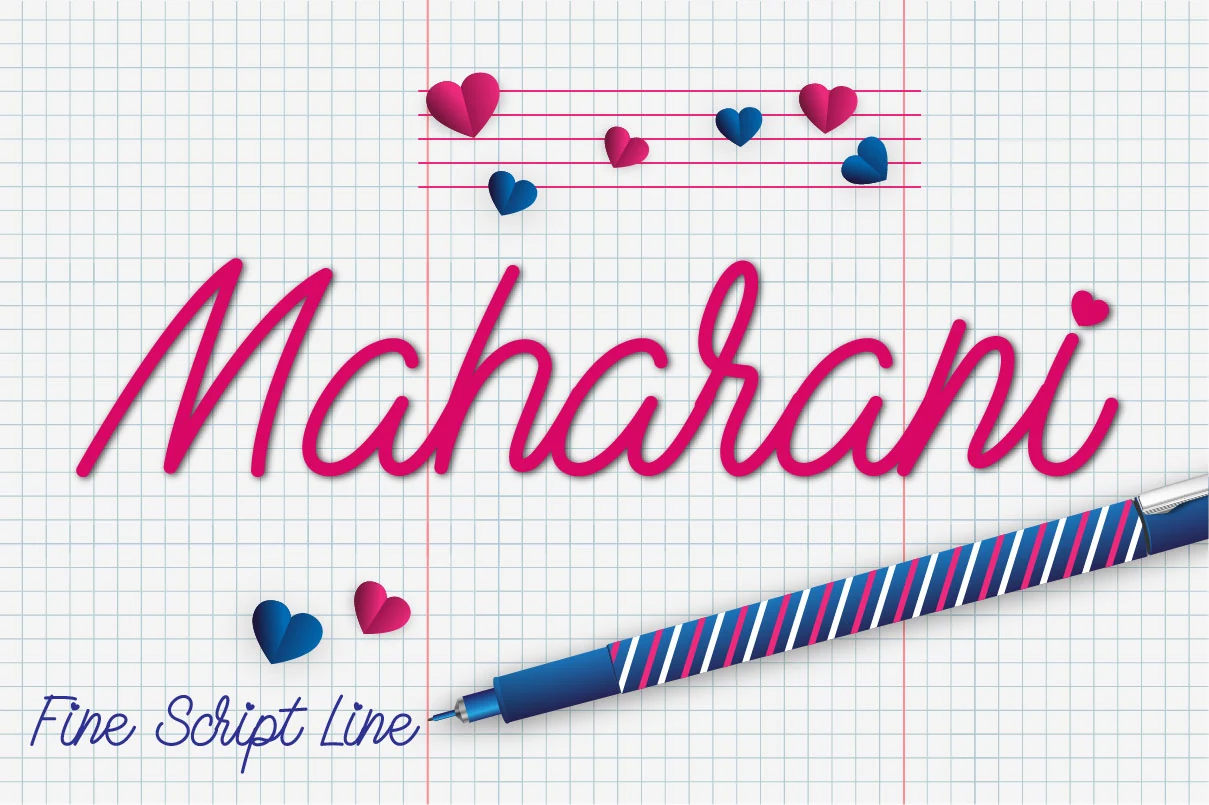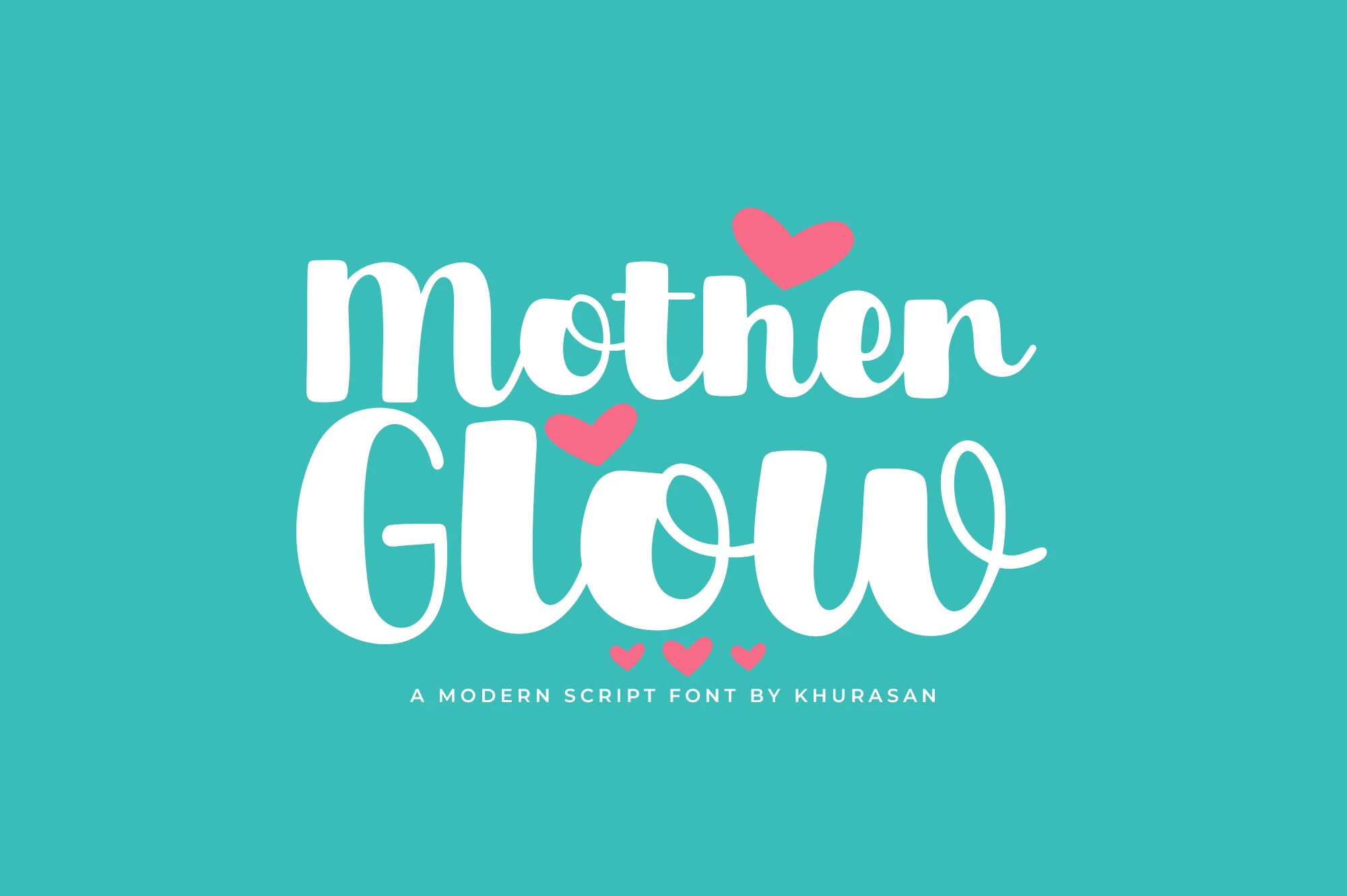
17 Beautiful Cute Script Fonts for 2026
Cute Script Fonts can bring warmth, charm, and personality to everything from logos and packaging to invitations, posters, stickers, and social media graphics. This collection spans bold bubble lettering, friendly handwritten styles, flowing cursive scripts, and whimsical decorative designs, making it easy to find an option that suits playful branding, romantic stationery, cheerful products, or expressive display text.
Playful Bubble Cute Script Fonts
These bold, rounded styles have cheerful, youthful energy and work especially well for logos, packaging, posters, stickers, and other large display designs.
Valentines Font
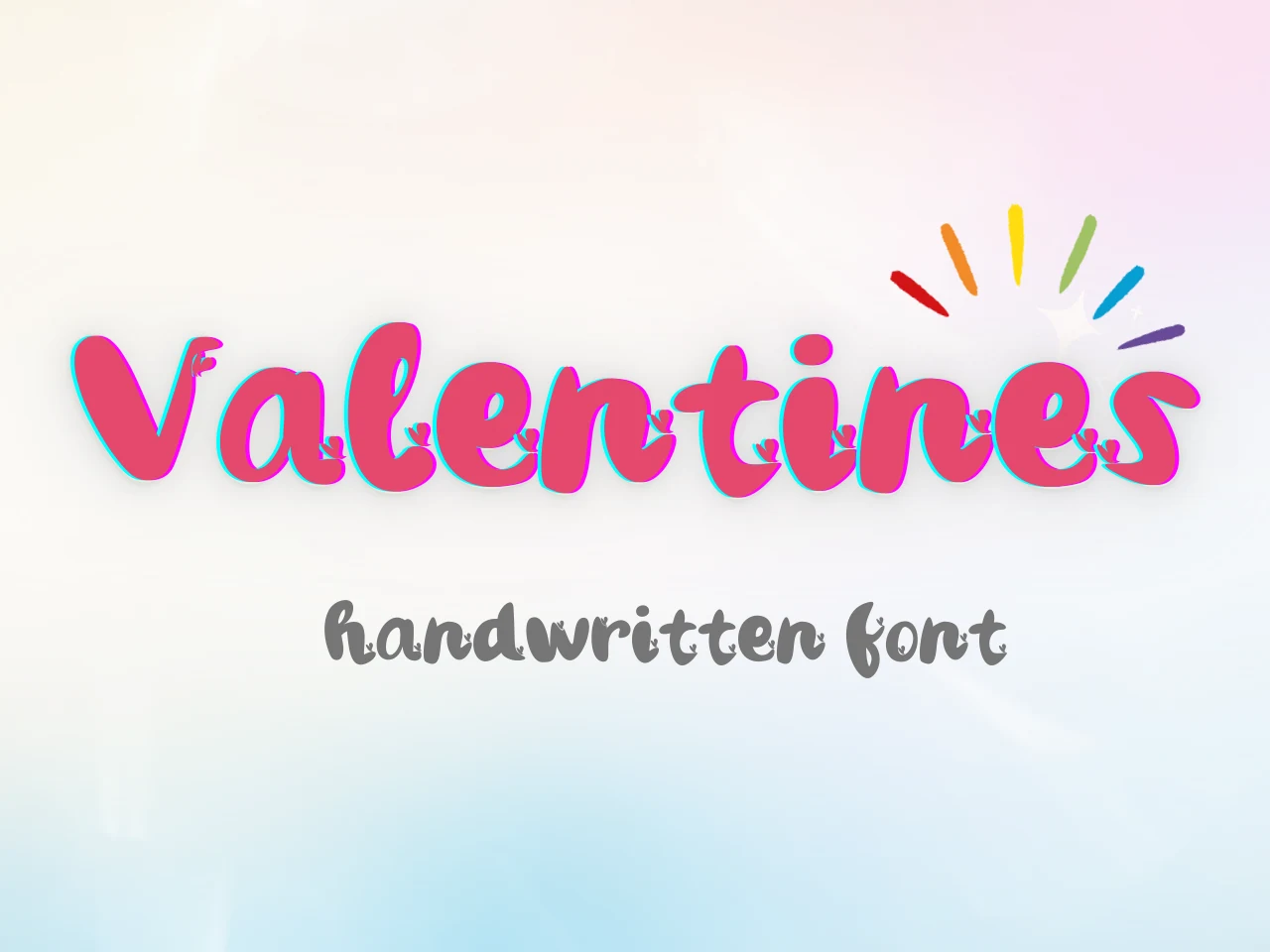
Best For: playful designs, cute designs, posters, stickers
Valentines Font brings a cheerful, quirky personality to Cute Script Fonts with thick monolinear strokes, rounded terminals, and playful irregular curves. Its upright, disconnected letterforms keep the handwritten look clear while giving titles and short phrases a friendly display presence.
The bold shapes remain readable at larger sizes, making this a natural fit for posters, stickers, and packaging. Use generous tracking and strong background contrast to preserve the open rhythm, then set supporting text in a lighter, simpler style so the rounded lettering leads the hierarchy.
Sprache Fett Font
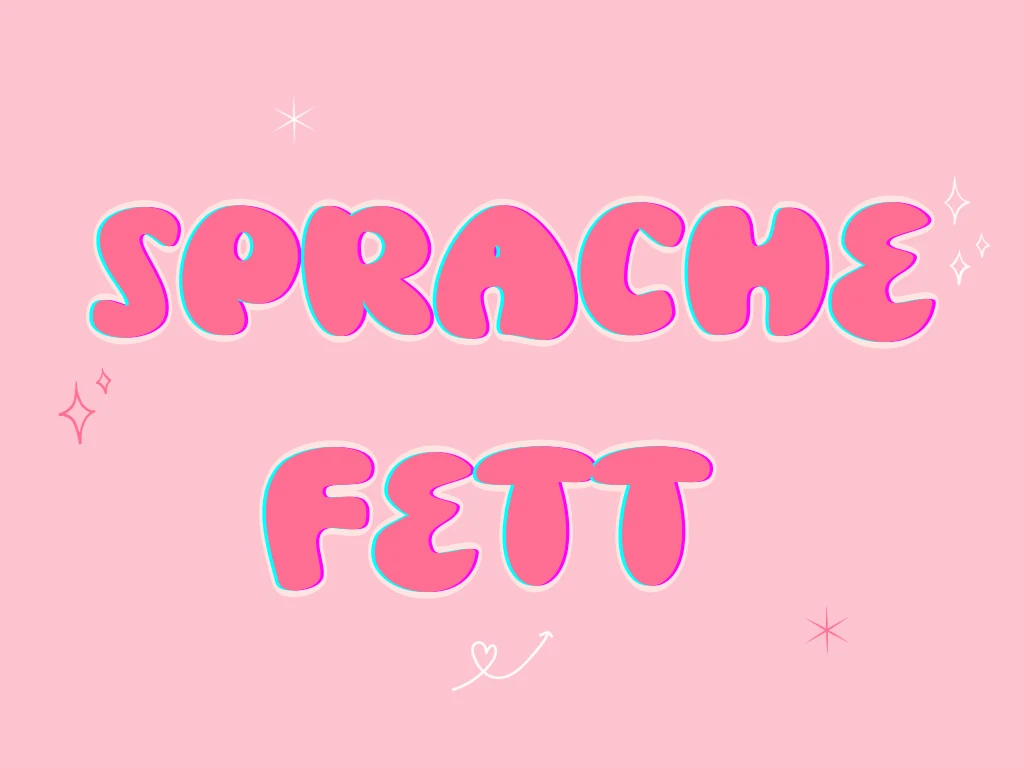
Best For: logos, posters, playful designs, cute designs
Sprache Fett is a sweet, friendly handwritten display face with ultra-bold bubble forms, rounded terminals, and a steady monoline structure. Its upright letters feel cheerful and nostalgic, while the offset outline creates a faux-3D layered effect with strong retro character. Its rounded, inflated shapes bring the cheerful appeal associated with Cute Script Fonts to bold visual work.
Use it for short headlines, logos, and other display text where its soft proportions can take center stage. Keep tracking slightly open so the bulbous forms and layered outline do not crowd together, and place the lettering against a clean, contrasting background for clearer edges.
Gloria Font
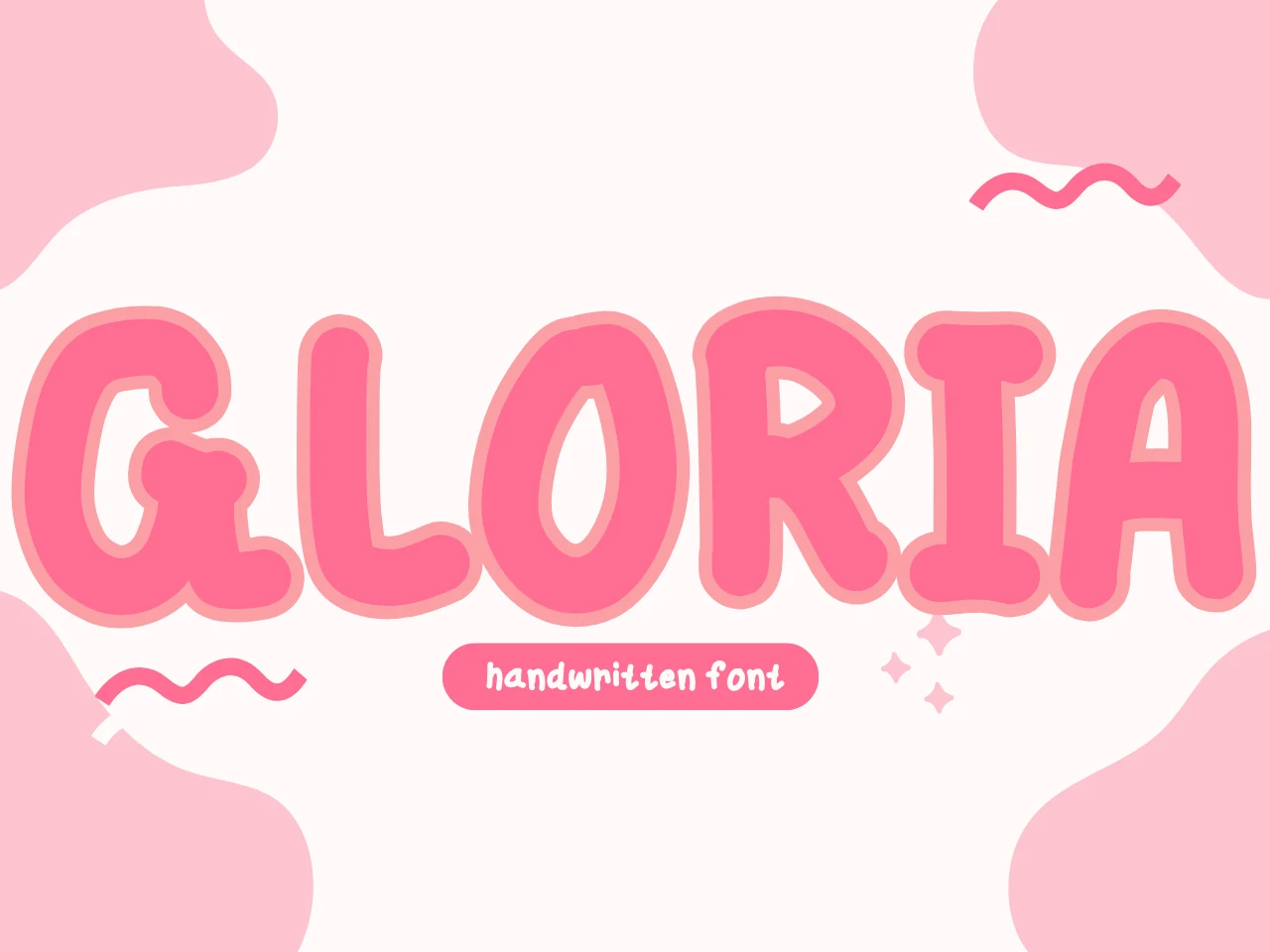
Best For: logos, packaging, display text, playful designs
Gloria has a bold, rounded presence, with monoline strokes, wide uppercase proportions, and soft, bulbous terminals. Its thick forms and compact inner spaces create a cheerful, youthful look that reads clearly in headlines and other short display text.
Although its letters are bubble-like rather than traditionally connected, Gloria fits the friendly spirit of Cute Script Fonts. Keep tracking slightly open when several rounded characters meet, and place the lettering against a contrasting background so its broad shapes remain distinct.
Oakleigh Font
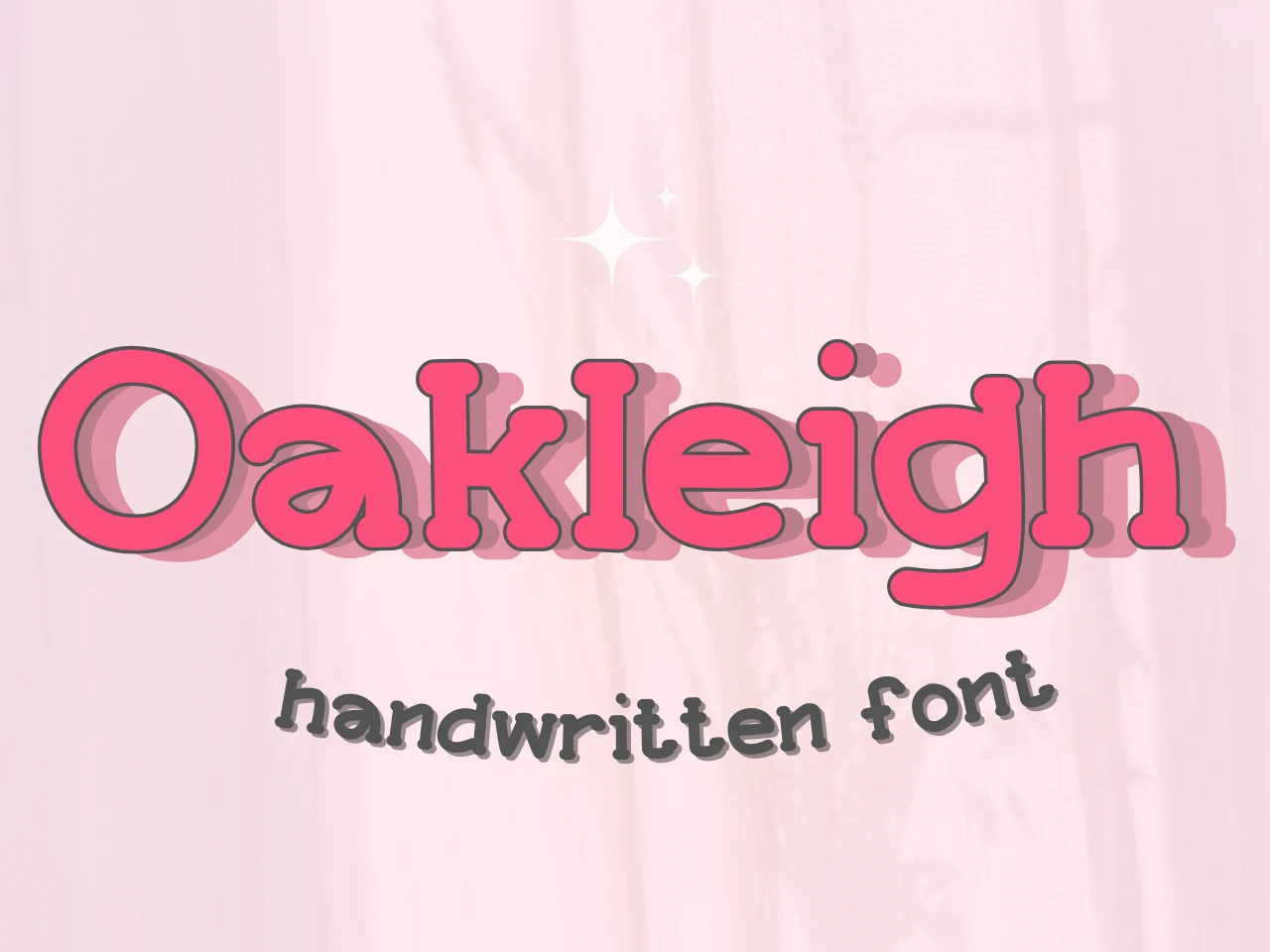
Best For: logos, packaging, stickers, social media graphics
Oakleigh uses rounded terminals, soft bubbly weight, and low stroke contrast to create a cheerful display style. Its simple, disconnected letterforms keep the name clear while giving it a relaxed, approachable rhythm, making it a strong fit for Cute Script Fonts used in playful titles and short phrases.
Use Oakleigh for logos, packaging, stickers, or social media graphics where a friendly headline needs visual presence. Keep tracking slightly open and pair its bold proportions with lighter supporting text; a clear size difference will preserve hierarchy without competing with the rounded forms.
Cruz Font
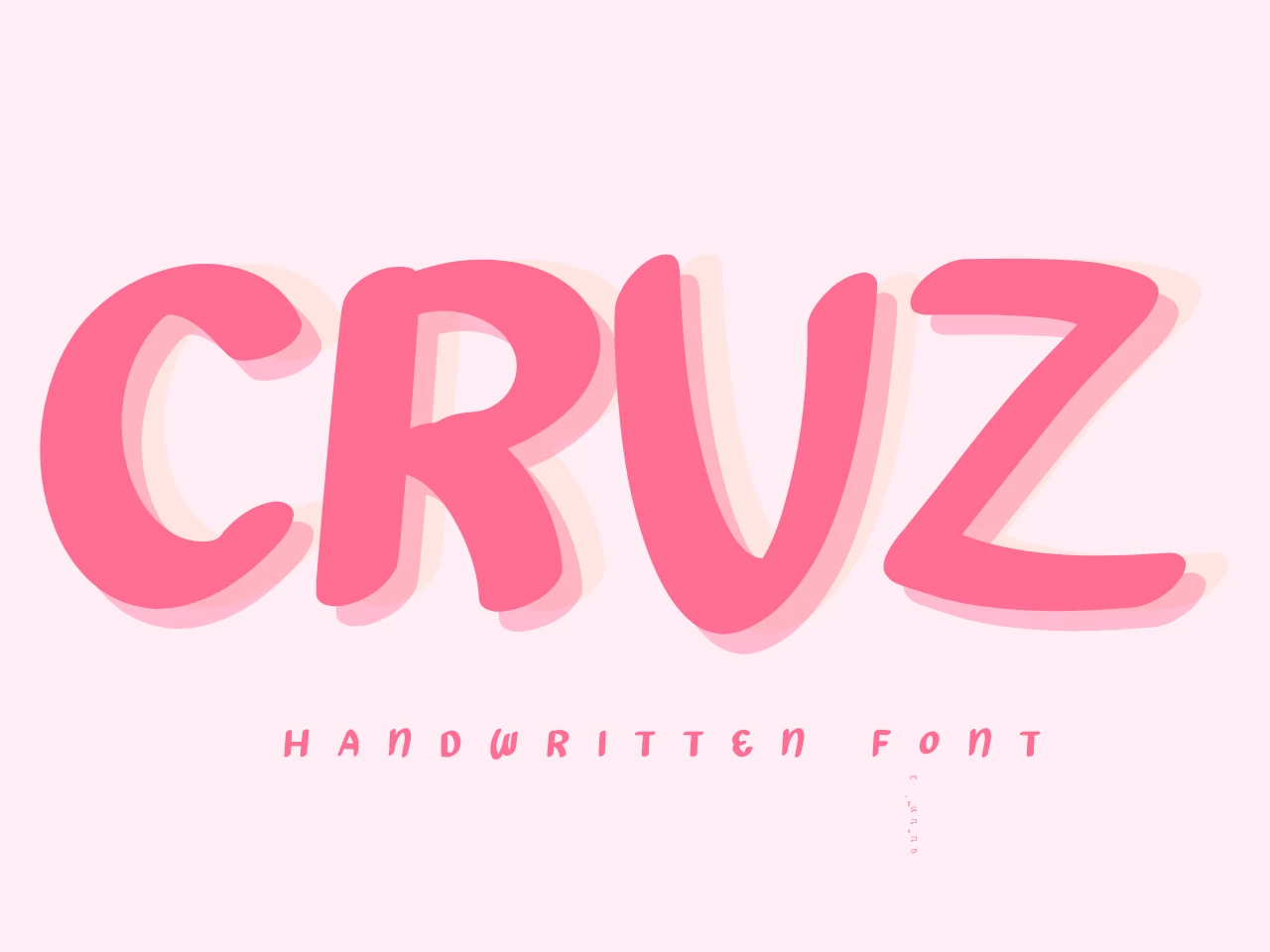
Best For: playful designs, cute designs, logos
Cruz is a sweet handwritten display font with bold, monolinear strokes, rounded terminals, and relaxed uppercase proportions. Its slightly irregular forms and soft shadow create a friendly, youthful personality while keeping the lettering clear at medium and large sizes.
A natural fit for Cute Script Fonts collections, Cruz works especially well in short titles, logos, and expressive graphics. Keep tracking modest so the rounded characters form a cohesive rhythm, and use lighter supporting text to preserve the strong title hierarchy.
Sunkiva Font
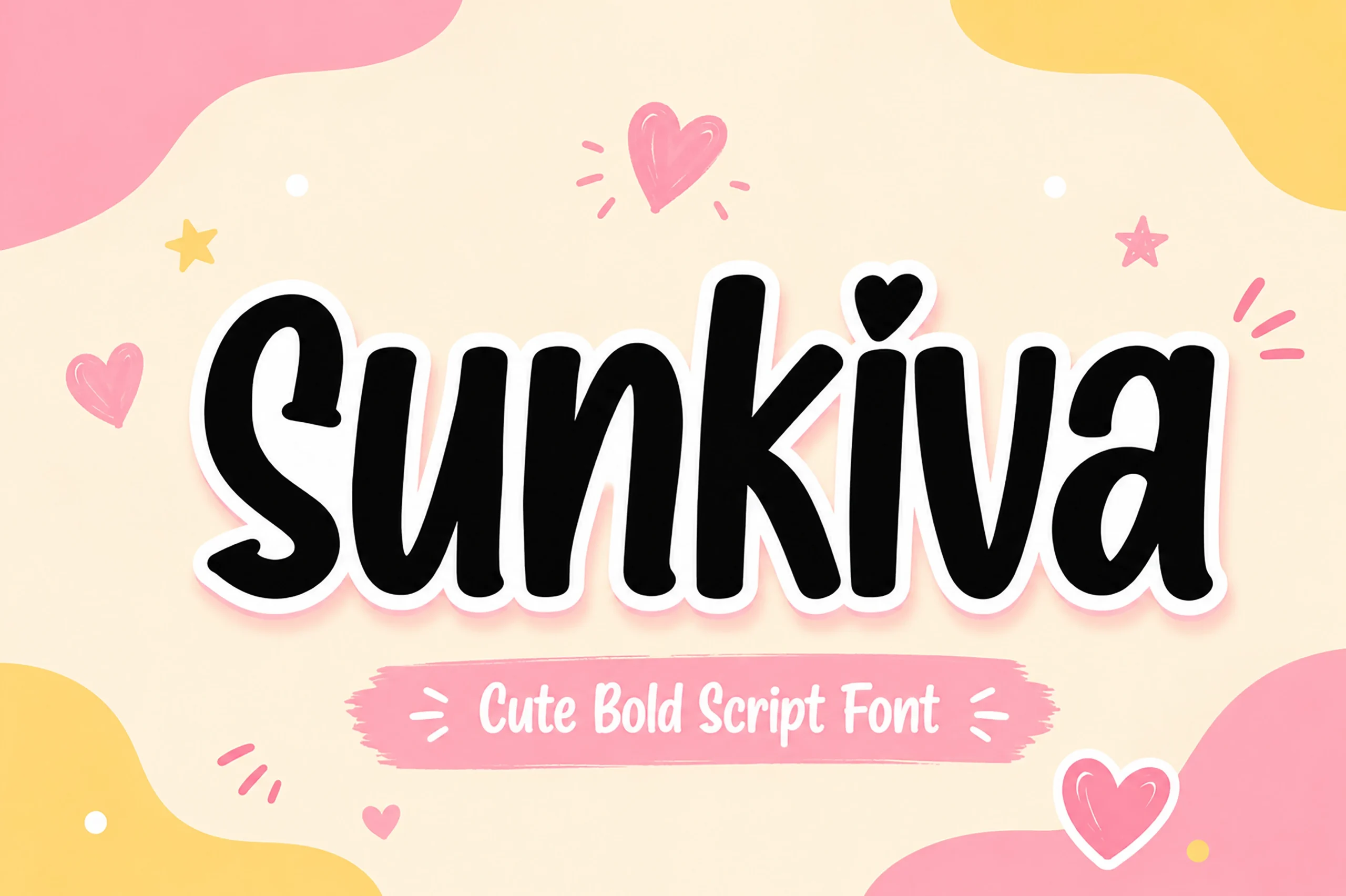
Best For: playful designs, cute designs, logos, product labels
Sunkiva brings a cheerful hand-lettered feel through bold, rounded forms, even strokes, and a lively bouncing baseline. Its upright stance, generous x-height, and heart accent give Cute Script Fonts a friendly, approachable character without relying on connected cursive strokes.
The sturdy shapes stay clear in headlines, logos, and short phrases, while the compact spacing can feel crowded at small sizes. Add a little tracking for longer words, and pair the display lettering with a lighter, simple supporting style to keep the hierarchy easy to read.
Friendly Handwritten Cute Script Fonts
Casual connected lettering and approachable curves make these fonts versatile choices for branding, invitations, social graphics, packaging, and short personalized phrases.
Romello Font
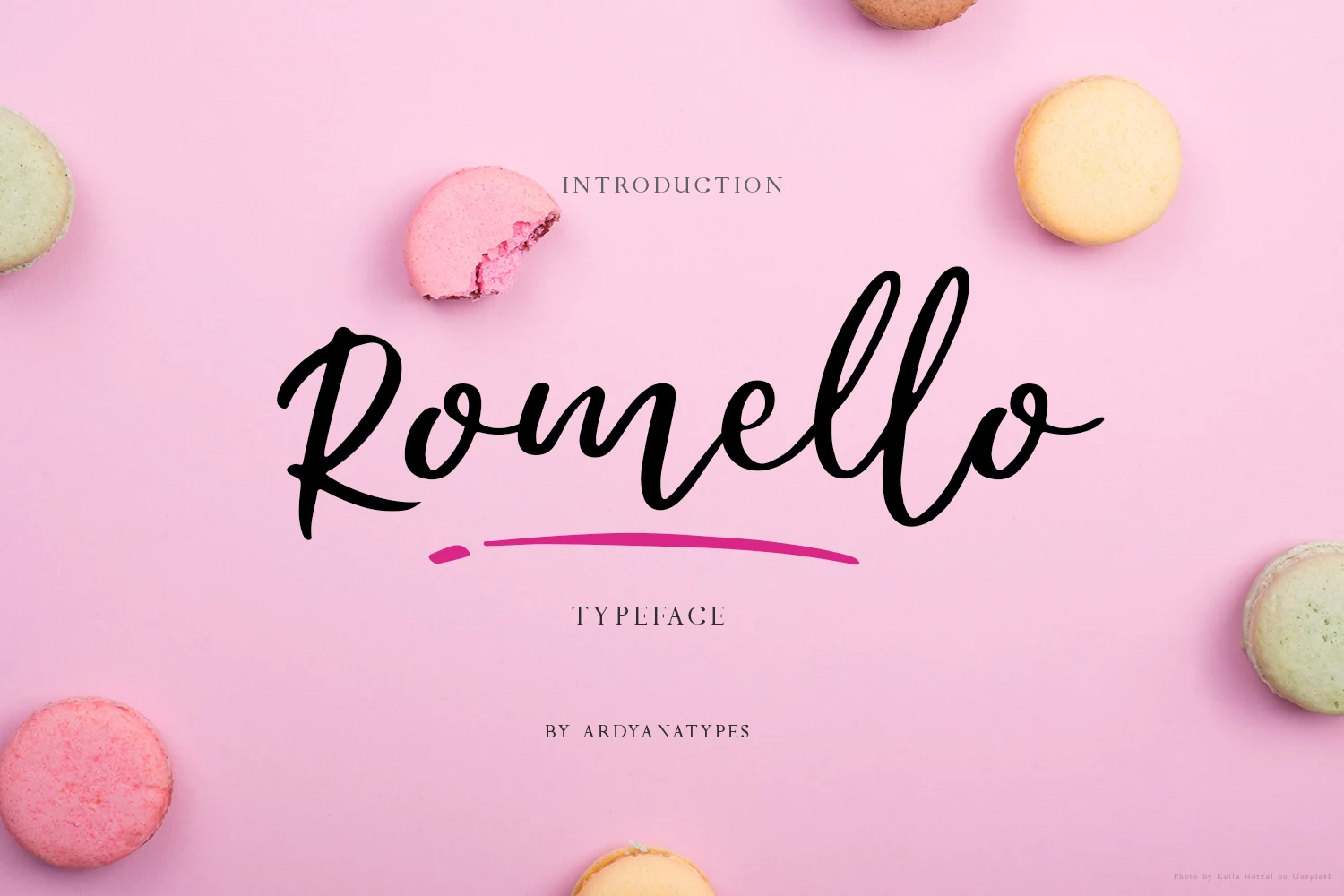
Best suited to display work, it brings personality to logos, posters, book covers, and other short titles. Keep the lettering prominent with comfortable spacing around the swashes, and use a restrained supporting weight so the contrast remains clear rather than crowded.
Conclusion
Choose the bubble styles when you want a strong, cheerful statement, or turn to the handwritten group for relaxed versatility and personal warmth. For more decorative projects, the whimsical scripts add distinctive flourishes, playful details, and an expressive finishing touch.